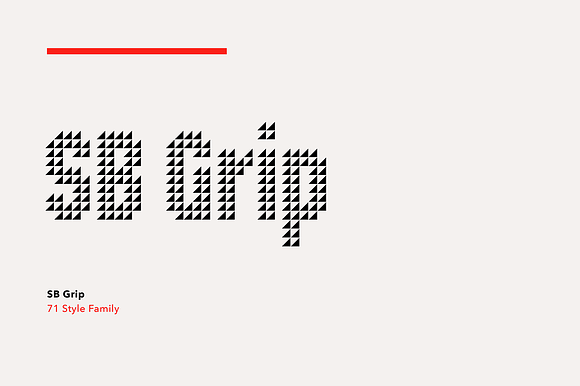
Sb Grip 71 Font Family
71x OpenType fonts designed for layering.
Pixel Solid fonts are optimised for use as a pixel font at 55px and multiples of 55px.
SB Grip was originally a pixelfont and took its name from its similarity to the type of gripped steel flooring that features a repeating pattern. It was based on a repeating, pixellated triangle and was designed to be layered over photography with the imagery showing through the spaces between the triangles.
Now SB Grip has been expanded into a large family of 71 styles, comprising various high-resolution shapes, all designed to be precisely combined and layered with one another.